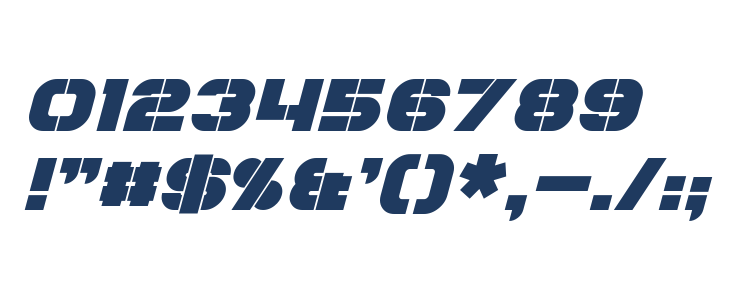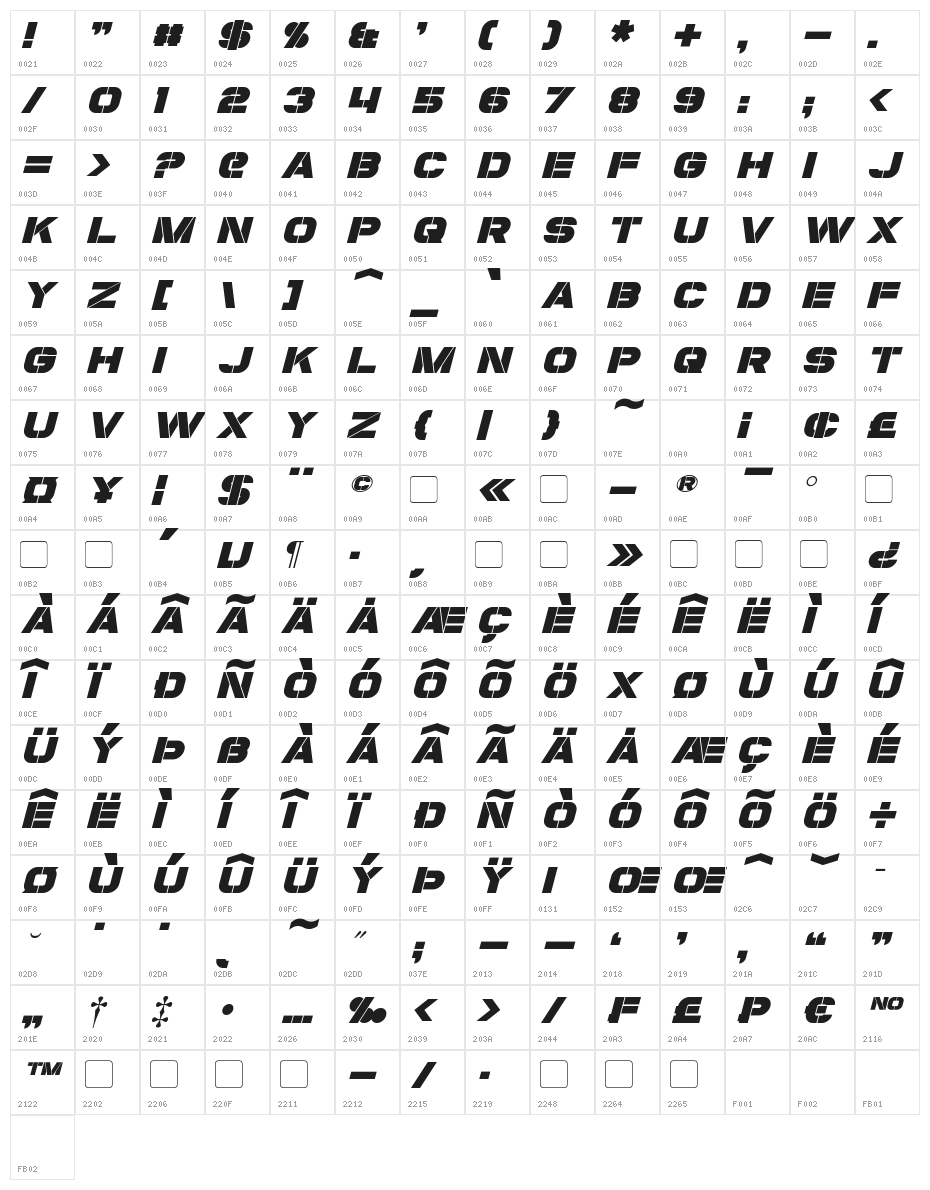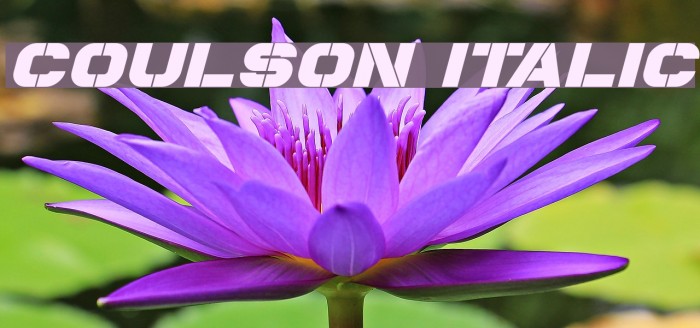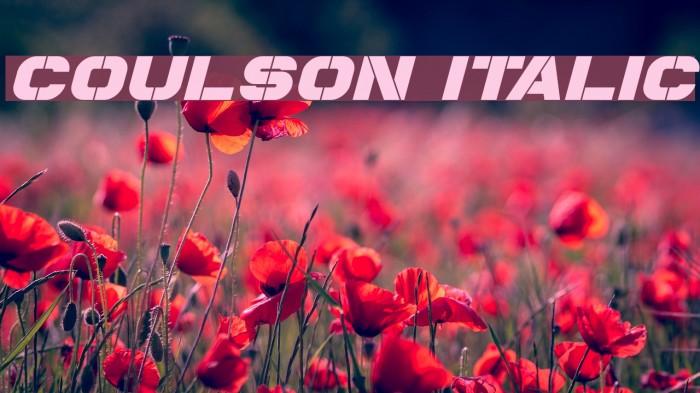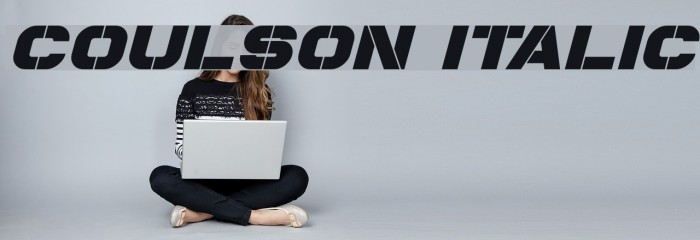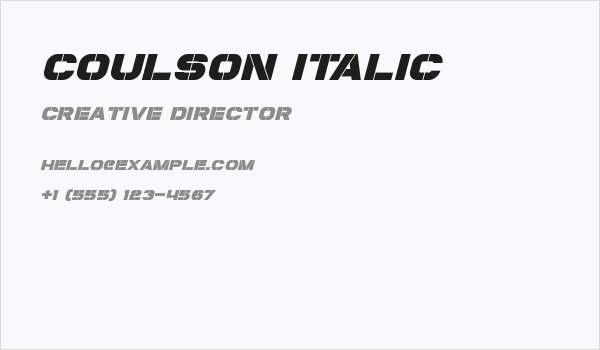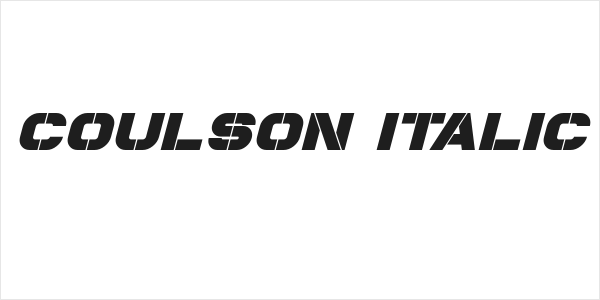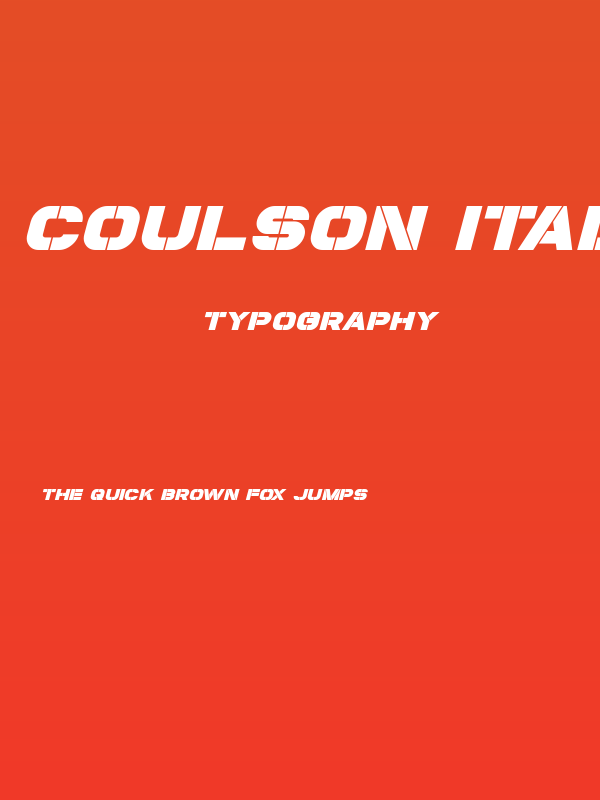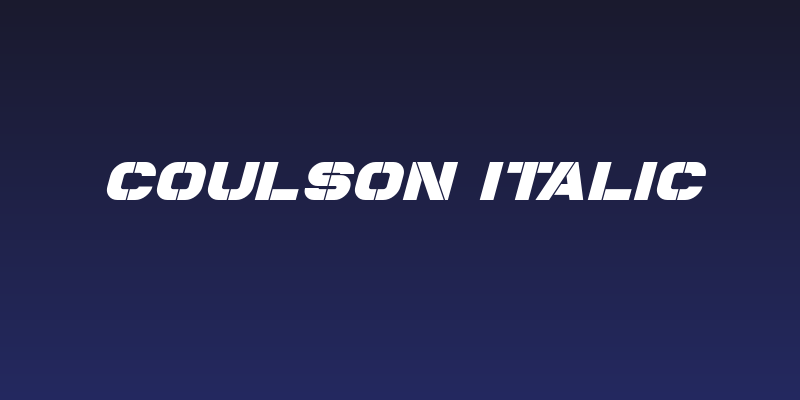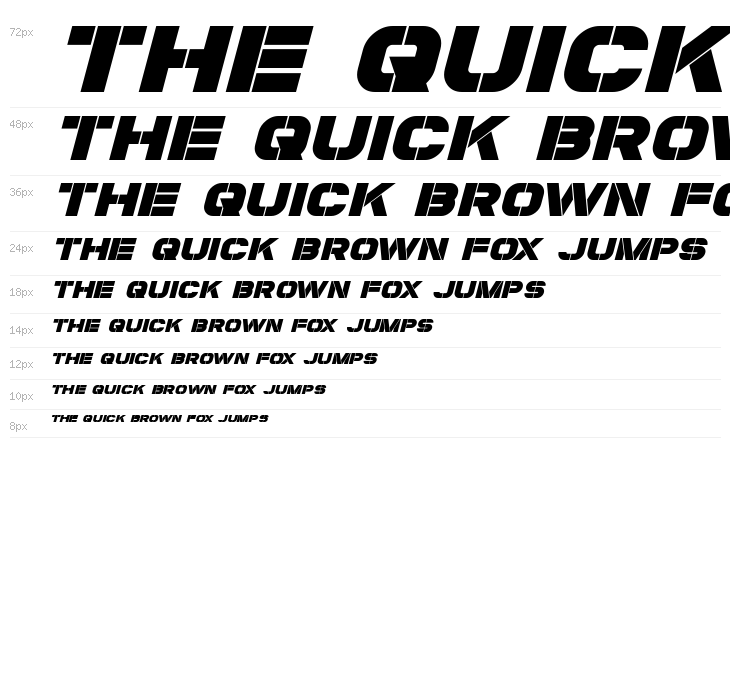
Coulson Italic Font
Coulson Italic Description
This font features a bold and dynamic style with a strong italic slant, giving it a sense of movement and energy. The characters are wide and have a distinct geometric structure, with sharp angles and clean lines. The uppercase and lowercase letters maintain a consistent height, while the numbers and special characters are designed to complement the overall aesthetic. The font's boldness and italic nature make it stand out, making it suitable for attention-grabbing designs.
| Proposed Projects | Ideal for sports branding, dynamic posters, modern logos, and eye-catching headlines. |